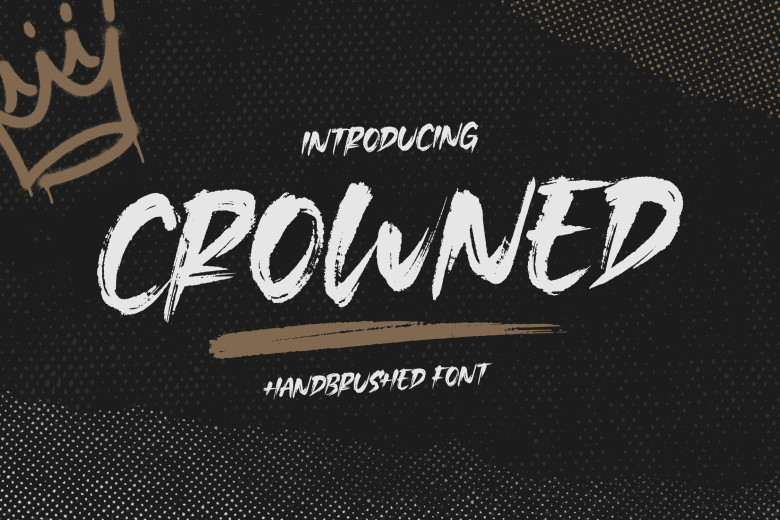
Crowned Font
Crowned has a modern, handbrushed feel and will add warmth and invitingness to any project you work on. Perfect for branding purposes, magazine articles, social media updates and wedding invitations; Crowned can even be used to add words over text overlays!
Crowned Brush Script Font